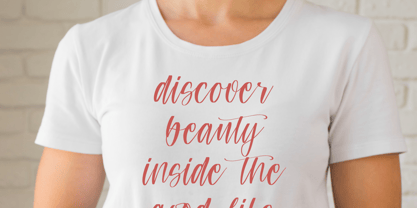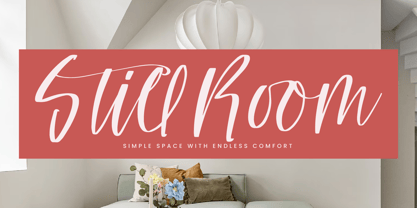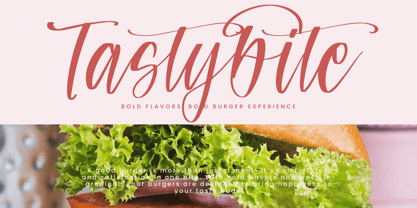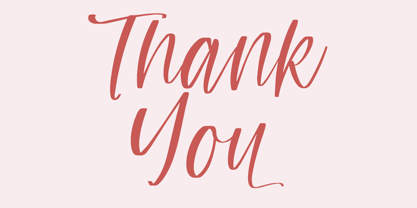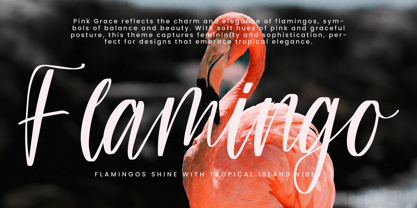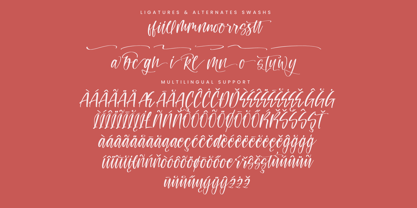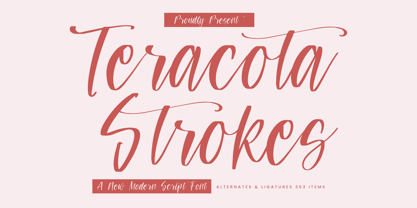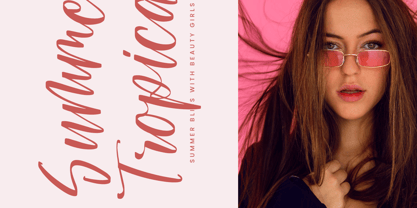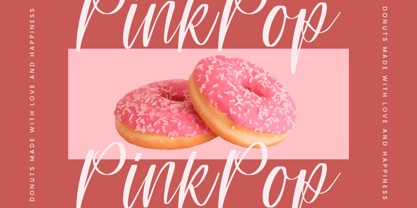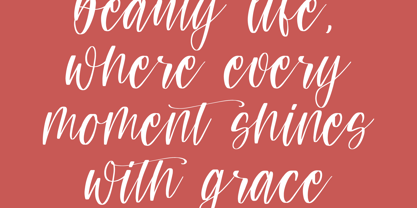
Teracota Strokes
by Integritype
The Teracota Strokes Font Family was designed by Dimas Alif Maulana and published by Integritype. Teracota Strokes contains 2 styles and family package options.
Teracota Strokes is a contemporary script font designed by Integritype Studio, ideal for a wide range of creative projects. This versatile font enhances logos, branding initiatives, homeware designs, product packaging, and more. Perfect for t-shirts, mugs, quotes, posters, shopping bags, book covers, business cards, invitation cards, greeting cards, labels, and photography watermarks. Whether for special events or luxury projects, Teracota Strokes adds a touch of elegance and sophistication, making it a must-have for designers seeking a premium aesthetic.